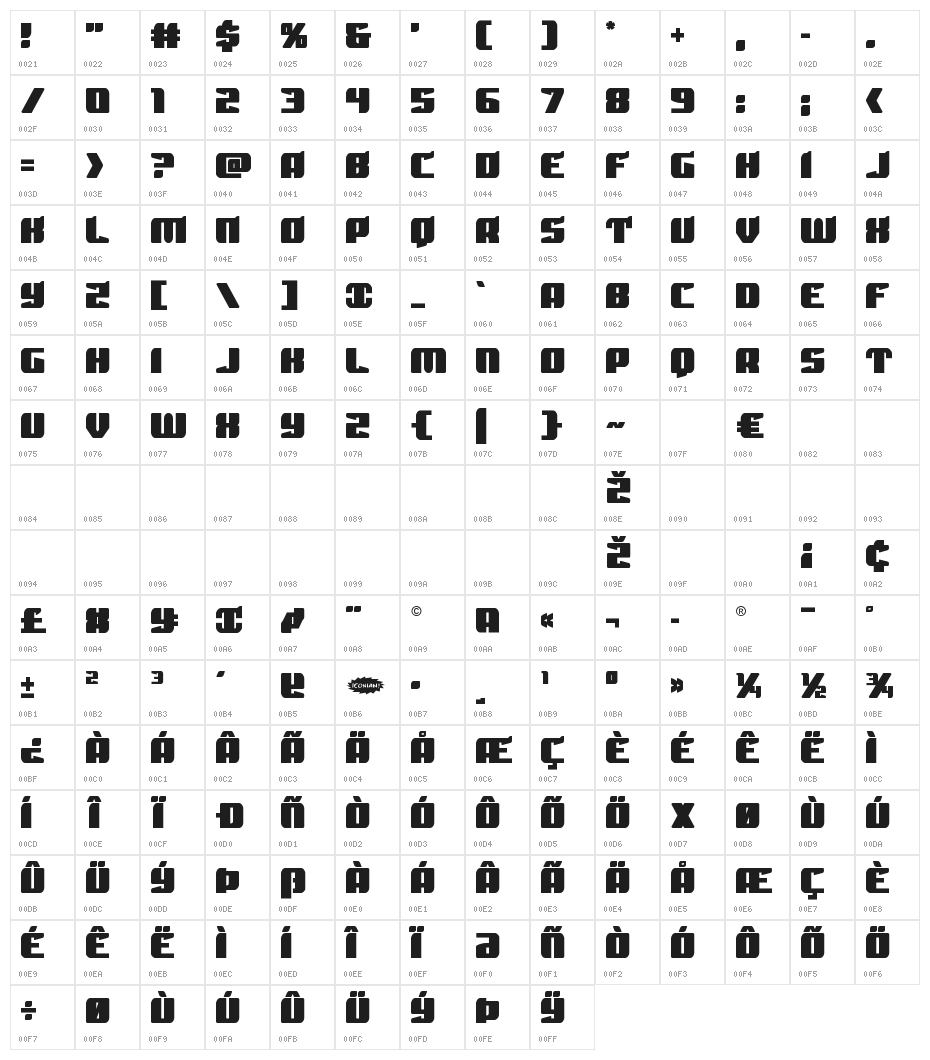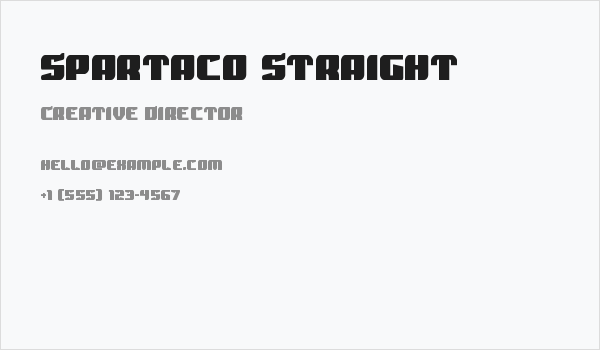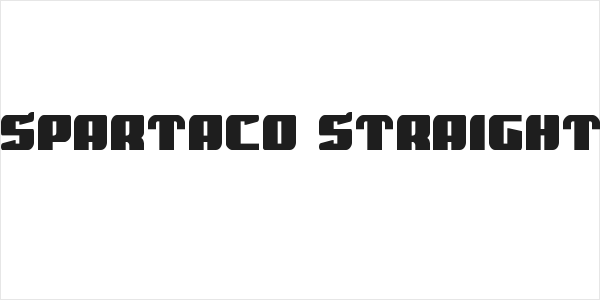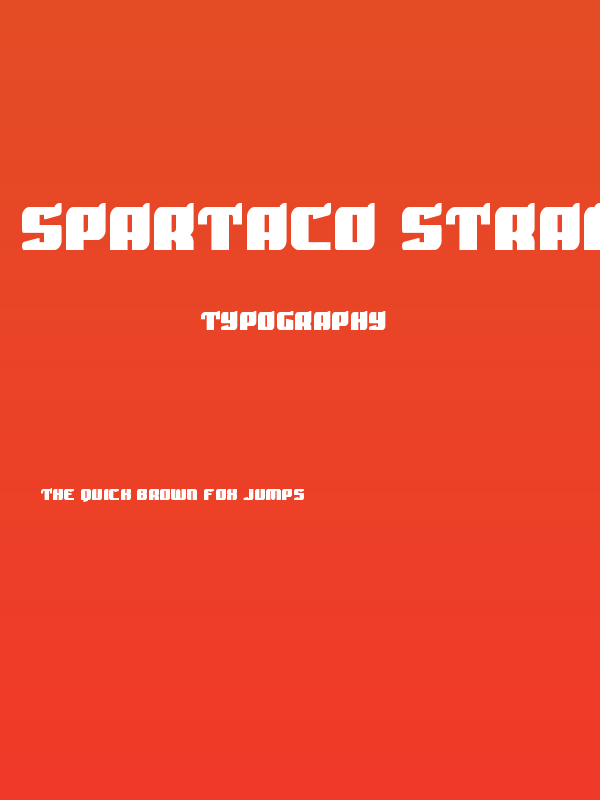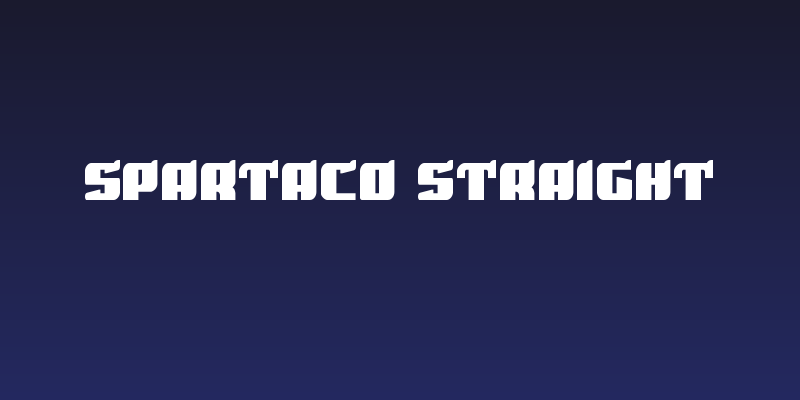
Spartaco Straight Font
Spartaco Straight Description
This font features a bold and robust design, characterized by its thick, blocky letters with sharp, angular edges. The uppercase and lowercase letters maintain a consistent width, creating a uniform appearance. The numbers and special characters follow the same bold style, ensuring a cohesive look across all elements. The font's strong presence makes it ideal for attention-grabbing designs. Its geometric shapes and solid structure lend a modern and industrial feel, suitable for projects that require a powerful visual impact.
Overall StyleModern, Industrial
Proposed ProjectsIdeal for posters, headlines, logos, and branding materials that require a strong visual impact.